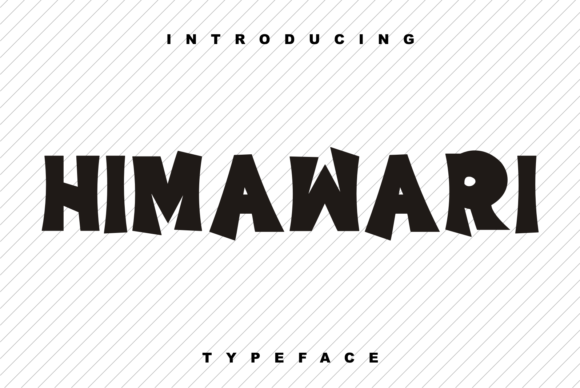
**Introducing Himawari: The Font That Will Add Power and Personality to Your Creations**
Are you tired of fonts that blend into the background, lacking the impact you need to make your designs truly shine? Look no further than Himawari, the display font that will transform your words into visual masterpieces.
**Bold, Unforgettable Letters**
Himawari boasts thick, bold letters that command attention from the moment they appear on the page. Each character is meticulously crafted to deliver a striking visual effect that will leave a lasting impression on your audience.
**Effortless Text Wrapping**
Our designers have expertly engineered Himawari to handle text wrapping with grace and precision. Whether you're crafting eye-catching headlines, captivating body text, or anything in between, Himawari will ensure your words flow effortlessly, creating a seamless reading experience.
**A Font for Every Occasion**
From bold posters that demand attention to elegant brochures that convey sophistication, Himawari's versatility knows no bounds. Its strong visual presence makes it perfect for a wide range of design projects, from personal branding to marketing campaigns.
**Transform Your Designs Today**
Don't settle for ordinary fonts that fail to capture the essence of your message. Choose Himawari, the display font that will elevate your creations to new heights of visual impact. With its bold letters and impeccable text wrapping, Himawari will empower you to create designs that turn heads, spark emotions, and leave an unforgettable impression.